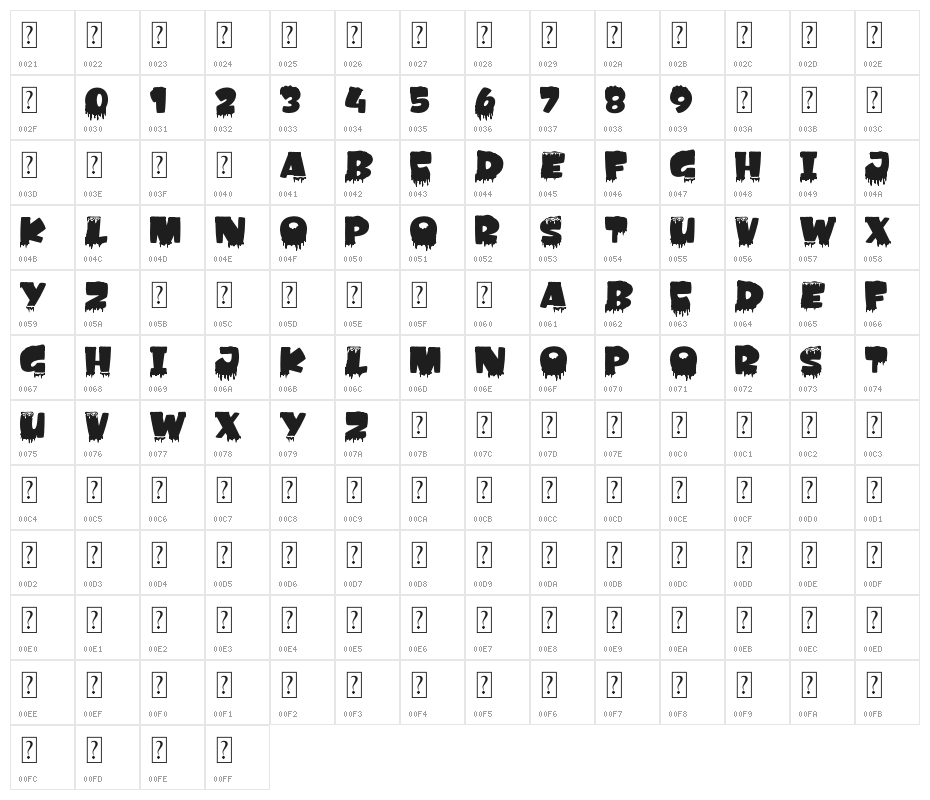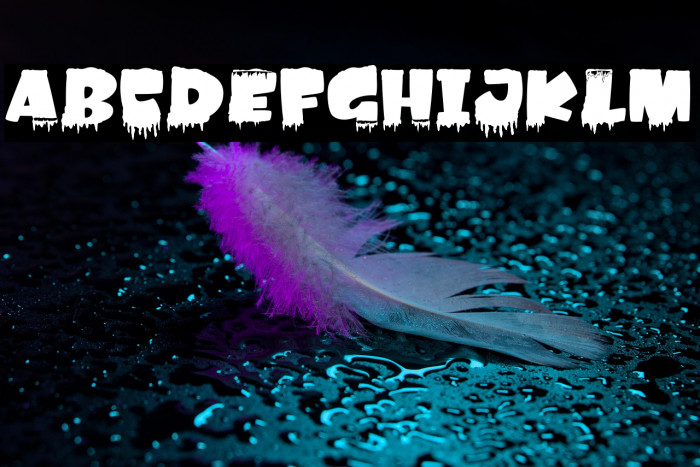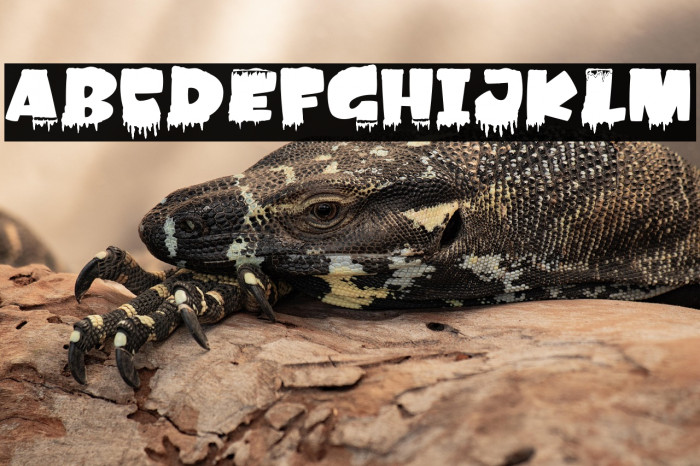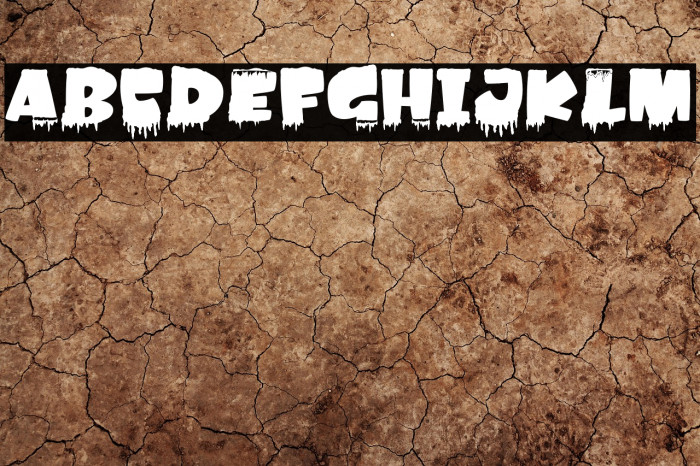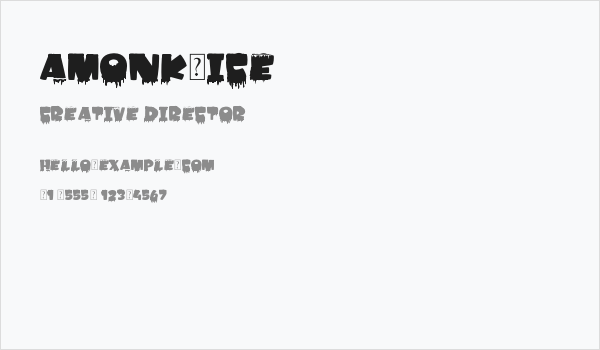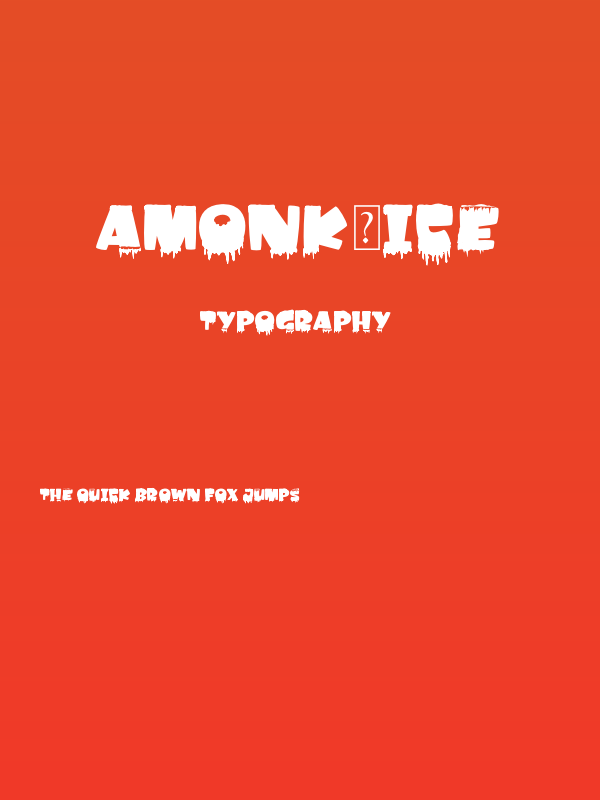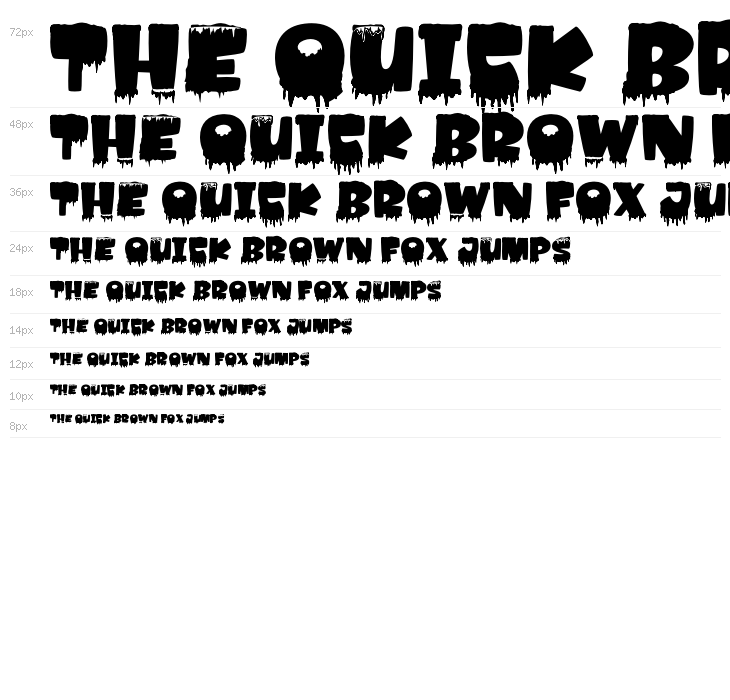
Amonk-Ice Font
Amonk-Ice Description
This font features a bold and dramatic style with a dripping effect that resembles melting ice or paint. The uppercase and lowercase letters are thick and heavy, creating a strong visual impact. The numbers follow the same design, maintaining consistency across all characters. The unique dripping effect gives it a playful yet edgy appearance, making it suitable for creative and unconventional projects. The font's distinctiveness lies in its ability to convey a sense of coldness or fluidity, making it ideal for themes related to winter, horror, or artistic expression.
| Proposed Projects | Ideal for Halloween posters, winter-themed events, edgy branding, and artistic designs. |